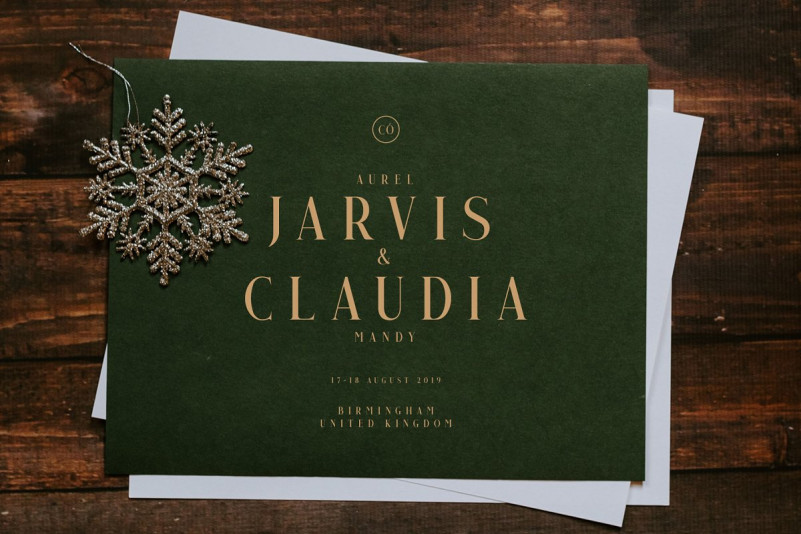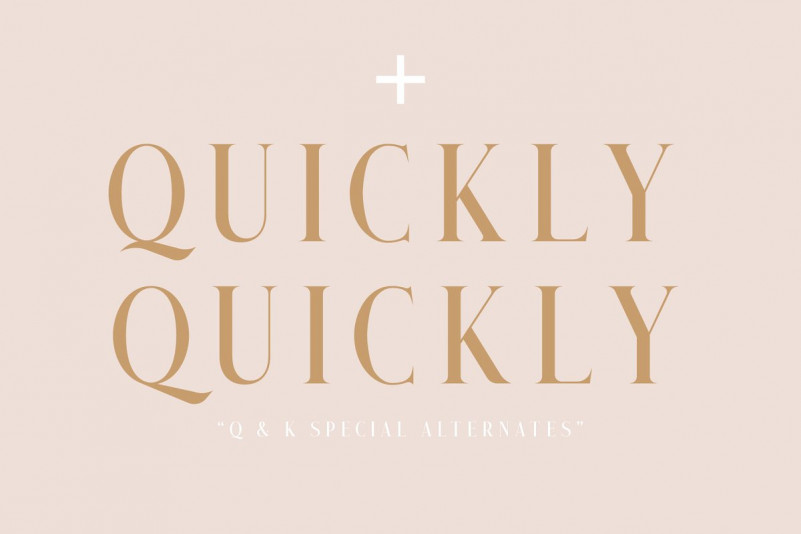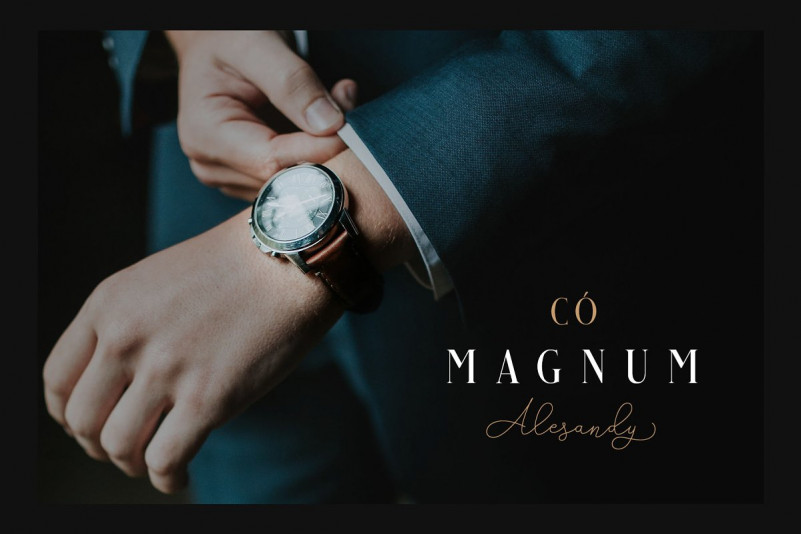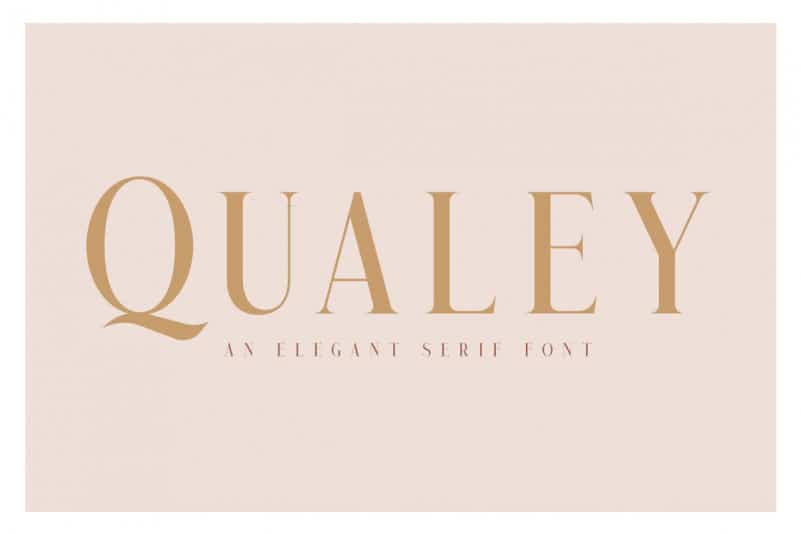
Qualey Elegant Serif Font
Hello guys. This is new, bold, clean and elegant high contrast serif with contrasting weight and dramatic effect, wich perfectly combines with handwritten signature script looking very natural and fashionable at the same time. Introducing Qualey Font. The Qualey designed and shared by Craft Supply Co.. Qualey Elegant Serif Font is a modern serif font family whose design refers us to the style of modern serif Font. The distinctive features of Qualey are the relatively high contrast of strokes, the slightly squarish shapes of sharp characters and the emphasized business like simplicity.
Qualey has been crafted from scratch with a structural logic of its own: a fusion of pure geometry and optical balance. By combining a variety of styles Qualey is suitable for Logo, greeting cards, quotes, posters, branding, name card, stationary, design title, blog header, art quote, typography